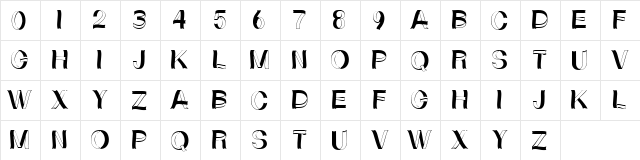
CurlyRibbons Regular
Design Context for CurlyRibbons Typeface
CurlyRibbons is a composed and adaptable typeface that performs quietly and consistently across a wide range of design contexts.